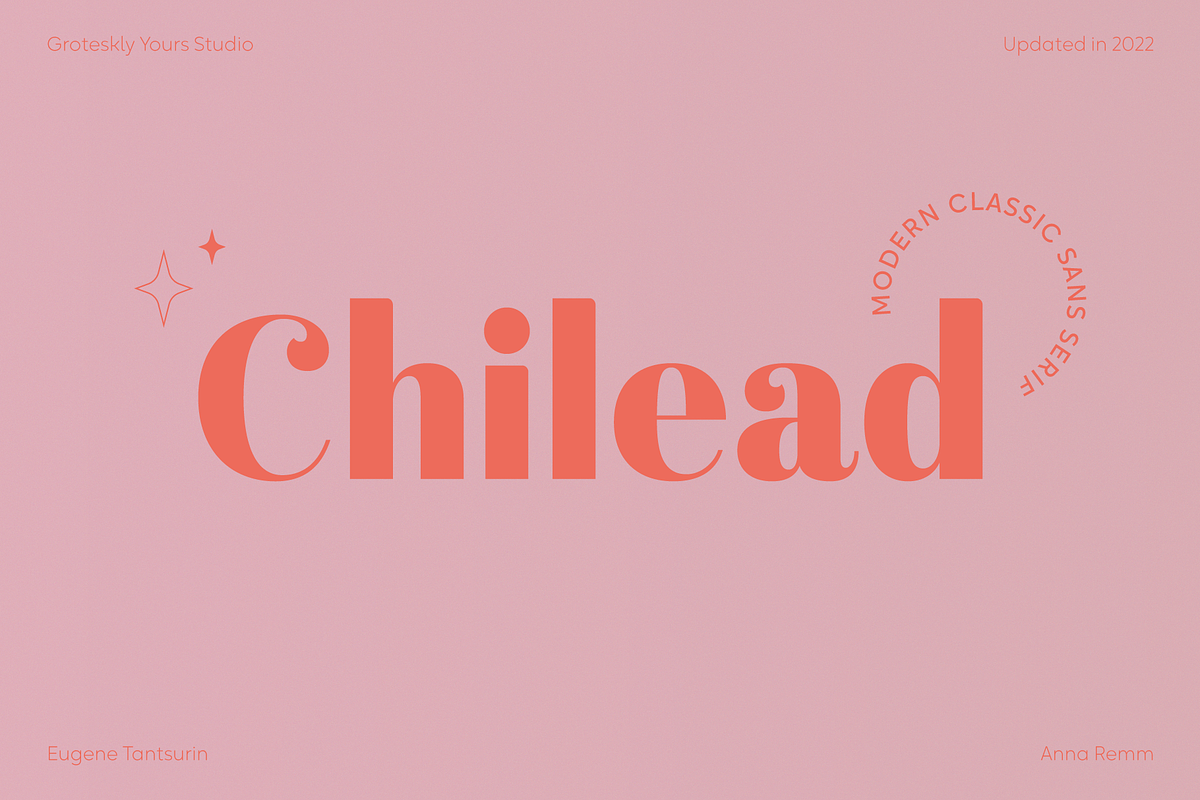
Chilead — Classic Sans Serif Font Free Download
Chilead — Classic Sans Serif Font Free Download is a clean and timeless typeface designed for maximum readability and style. With its balanced proportions, geometric shapes, and modern flair, Chilead is perfect for logos, branding, websites, editorial layouts, and print materials that demand a refined and professional look.
Its simple yet elegant design ensures your typography remains legible while maintaining a strong visual presence. Whether you're working on a corporate identity, a minimalist design, or digital content, Chilead adds sophistication and clarity to your project.
Designers love Chilead for its versatility, simplicity, and timeless appeal across both print and digital platforms. Ready to create sleek, professional typography? Download Chilead — Classic Sans Serif Font Free Download and elevate your designs with clean, modern style.